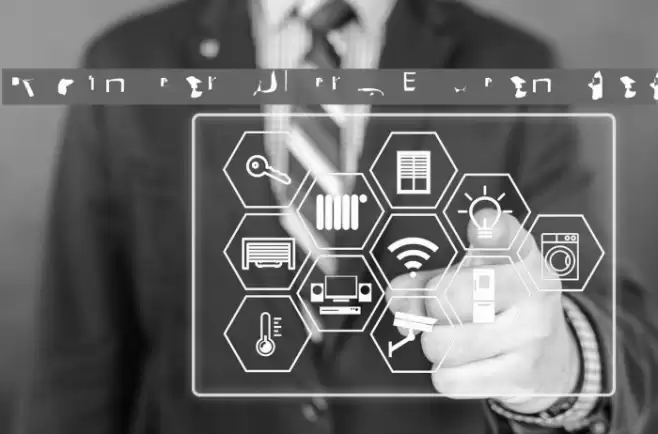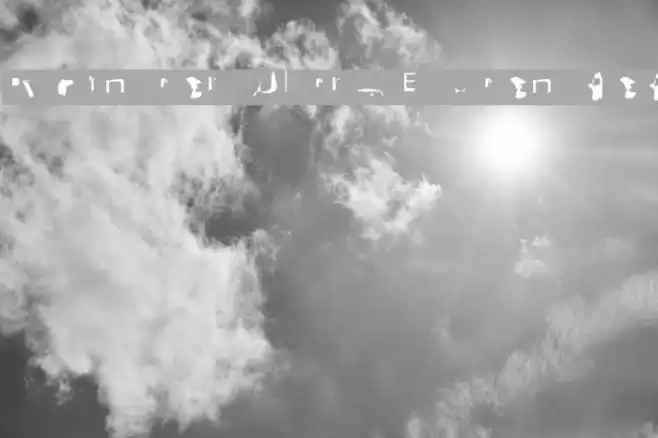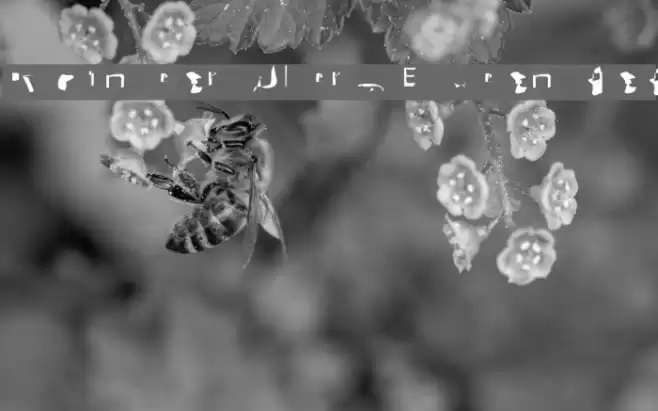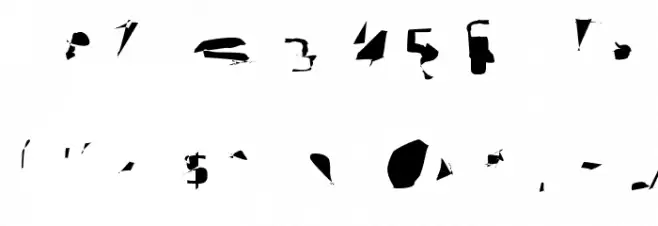
Pointer UltraExtended Font
Pointer UltraExtended Description
This font features a highly abstract and fragmented design, with characters that appear as if they are partially obscured or eroded. The style is reminiscent of distressed or glitch art, where the legibility is secondary to the visual impact. Each letterform is unique, with varying degrees of distortion, creating a dynamic and unpredictable visual rhythm. The uppercase and lowercase letters maintain a consistent level of abstraction, making it suitable for artistic and experimental projects. The numerals and special characters follow the same design ethos, contributing to a cohesive yet chaotic aesthetic.
An abstract, fragmented font with a distressed, glitch art style from Uncategorized fonts.
- Proposed Projects: Ideal for experimental art projects, avant-garde posters, album covers, and digital media where a bold, unconventional look is desired.
- Width: Expanded
- Overall Style: Modern, Abstract
- Use Case: Logos, Posters, Album Covers